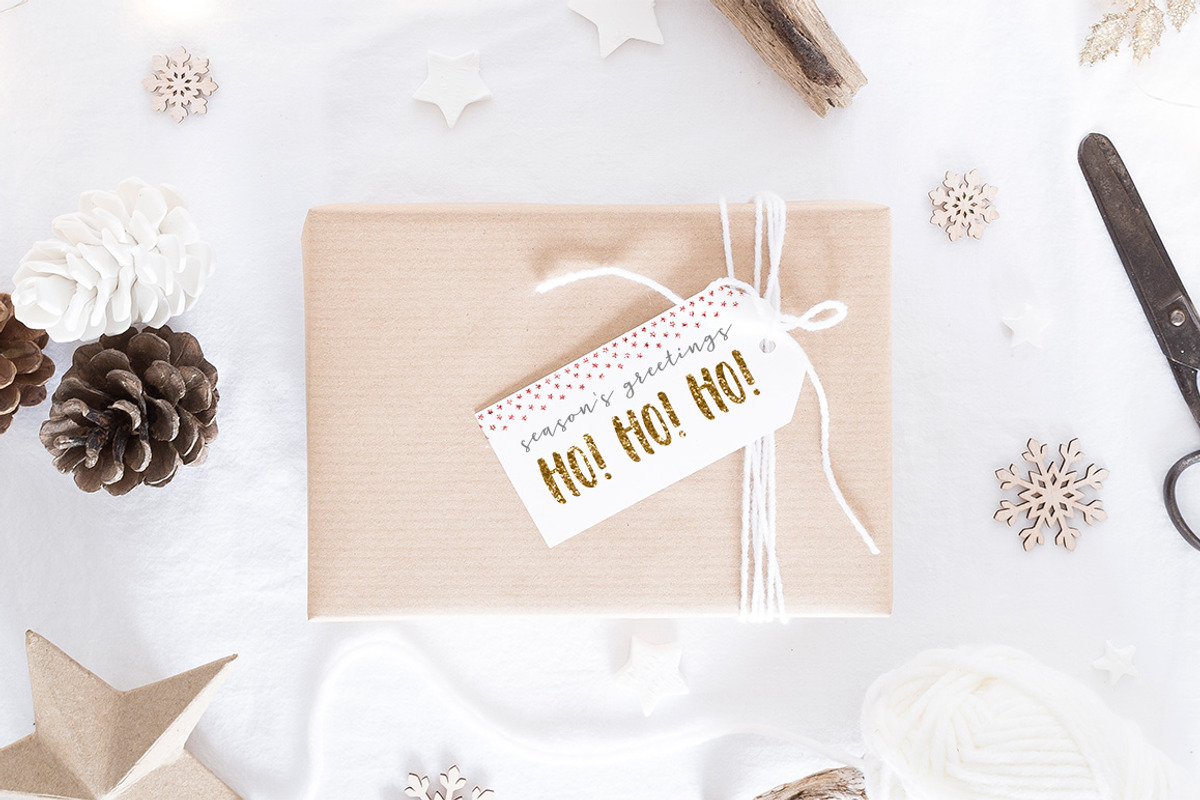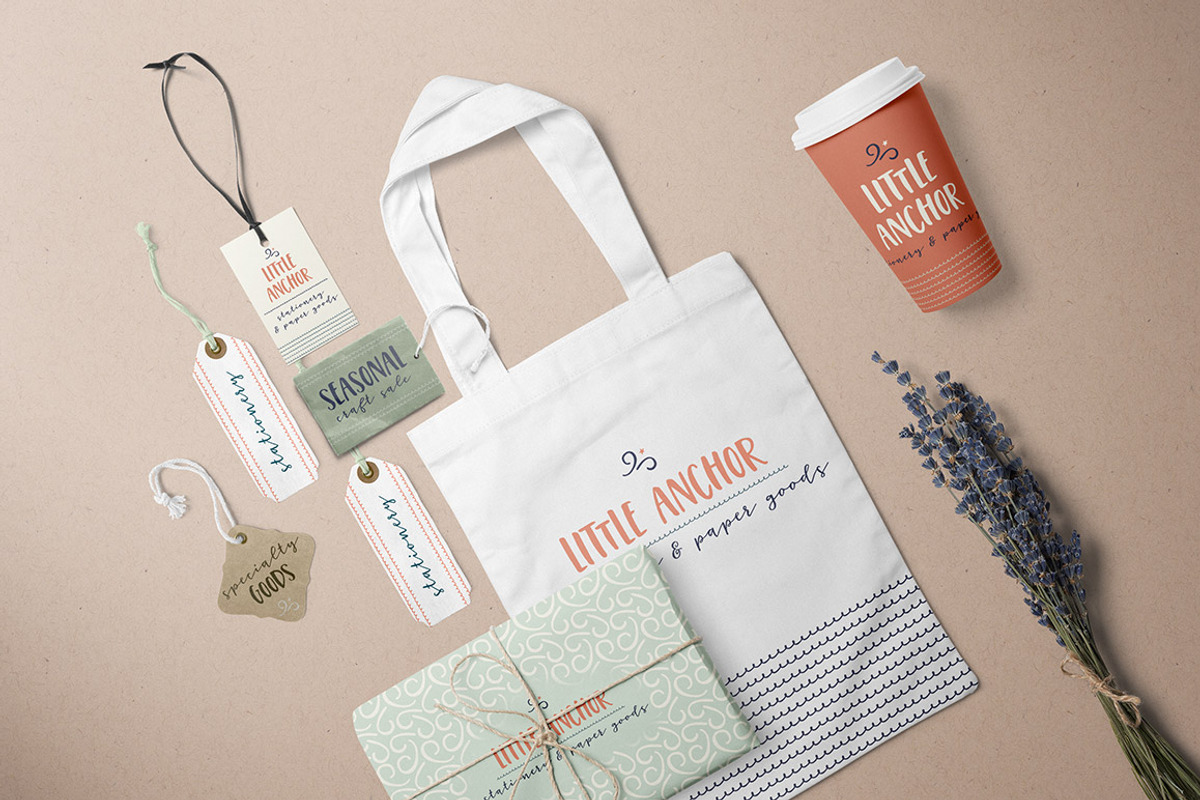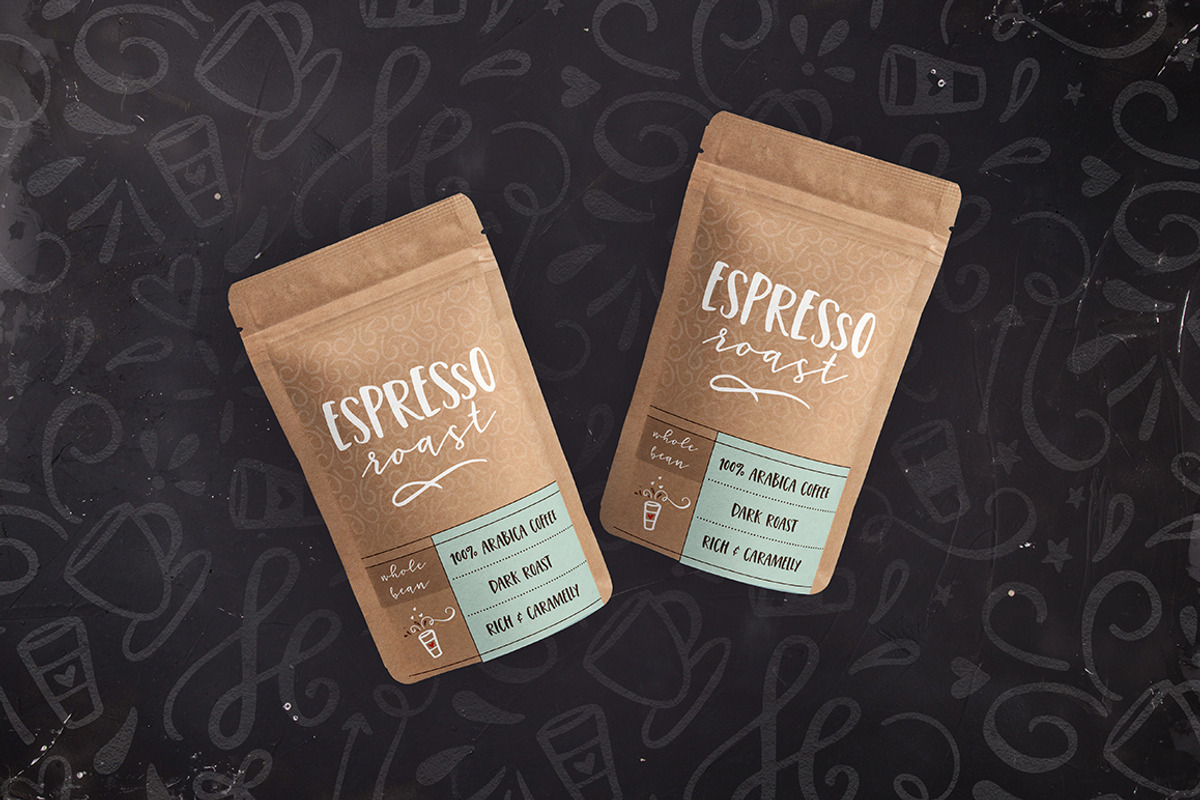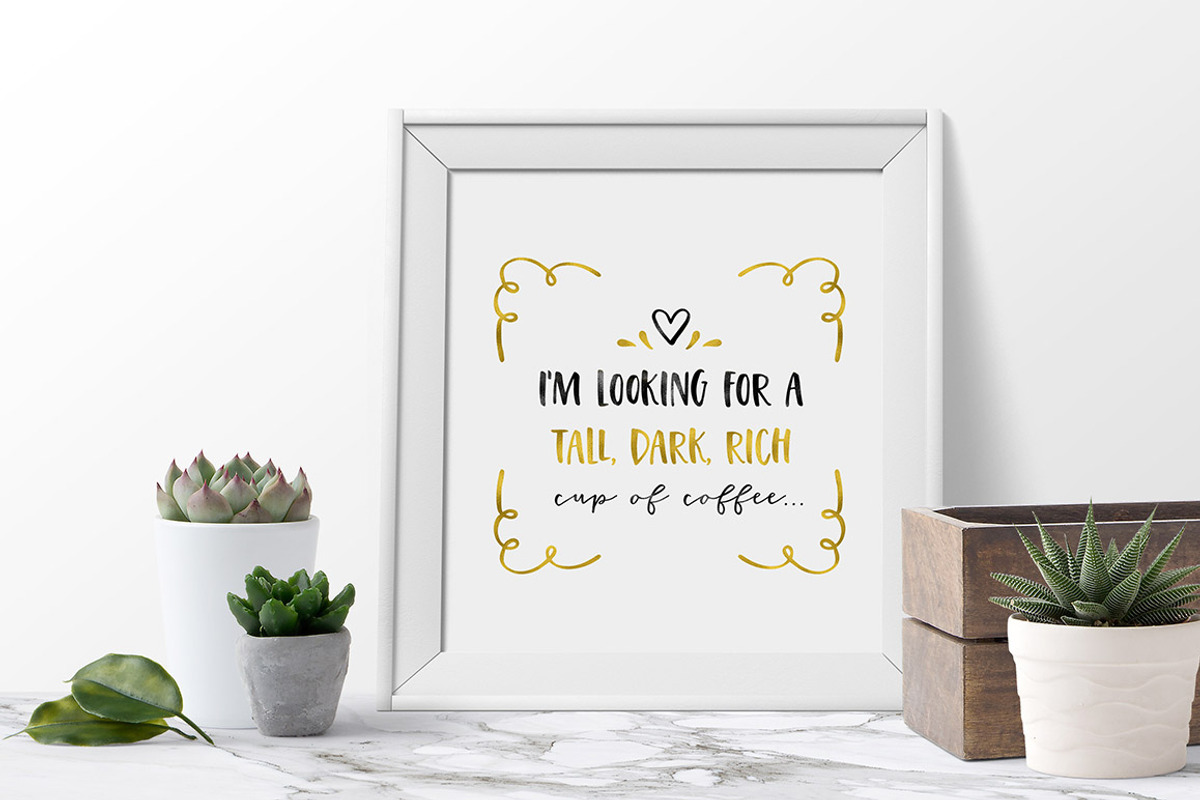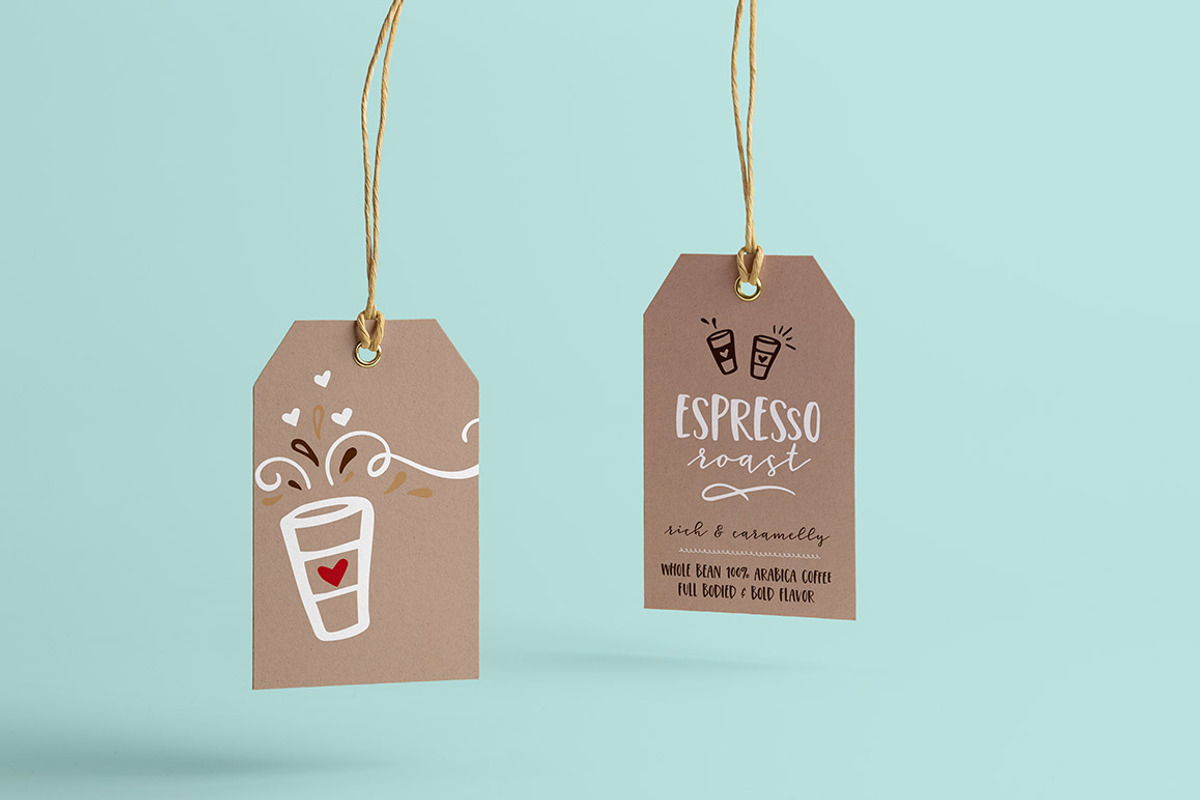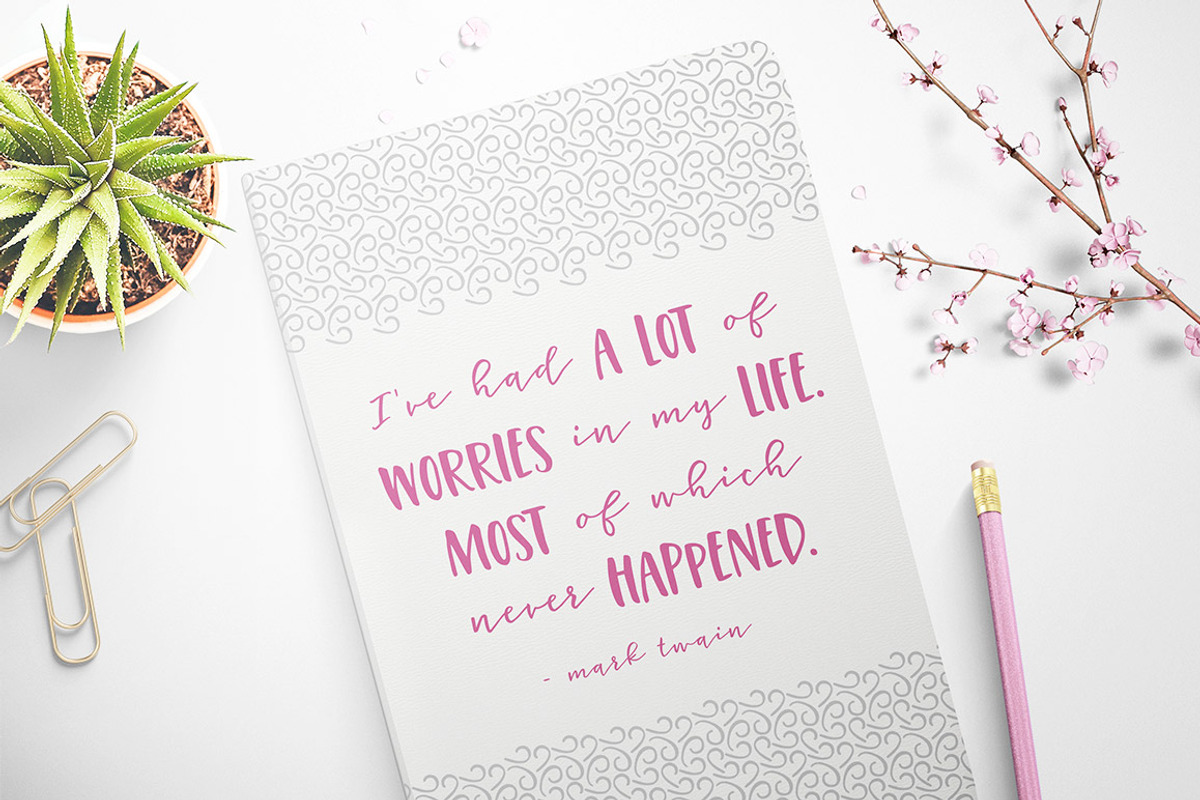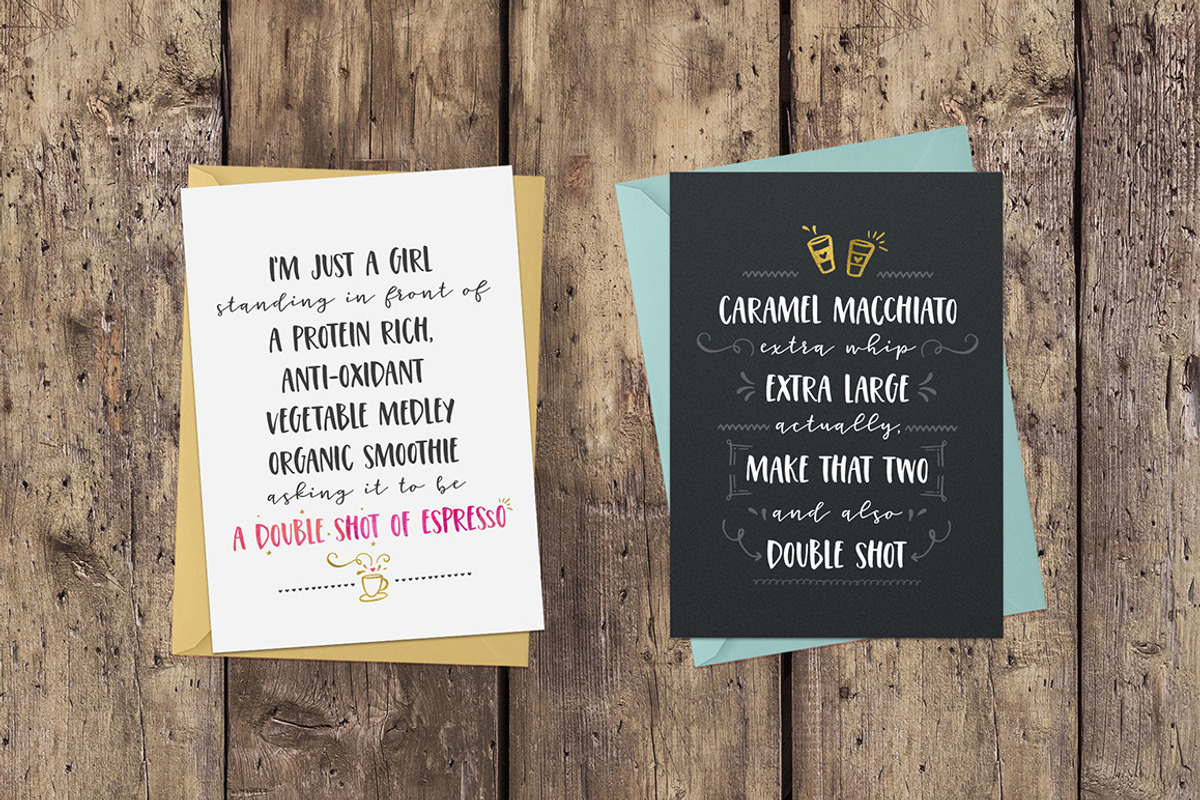
Espresso Roast Font Trio
Espresso Roast Font Trio by Every Tuesday is a font selected for branding, posters, packaging, typography.
- Espresso roast includes 3 styles, created to pair perfectly together to bring your designs to life: Caps, Script + Symbols.
- What's included with the Espresso Roast Font Trio: A Caps style with 12 double ligatures for more unique, hand drawn looks A full Script sty
- A different symbol is assigned to every letter, upper and lowercase.
- Espresso Roast Caps
- Espresso Roast Script
- Espresso Roast Symbols
Why Espresso Roast Font Trio is worth a look
Espresso Roast Font Trio by Every Tuesday fits naturally into Branding, posters, packaging, typography.